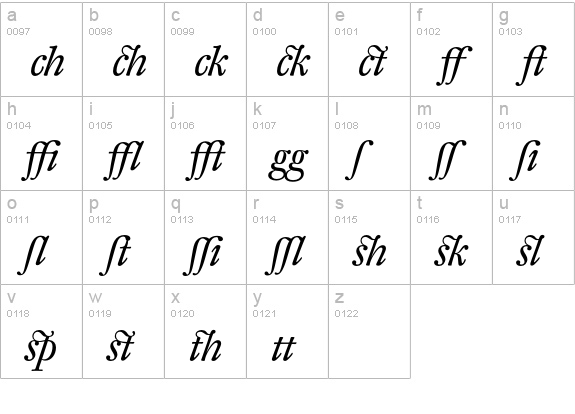
The DTLFleischmannT-AltItalic font is a modern and elegant typeface that exudes sophistication and style. Its sleek and slanted design adds a touch of flair to any project, making it perfect for use in branding, editorial design, and more. This versatile font is ideal for creating eye-catching headings, titles, and other design elements that demand attention. Its unique italic style gives a sense of movement and dynamism, making it a standout choice for projects that require a touch of creativity. Best of all, the DTLFleischmannT-AltItalic font is available for free download at FontsMarket.com. Whether you're a seasoned designer looking to add a new font to your collection or a beginner seeking to experiment with typography, this font is a valuable addition to any toolkit. Download it today and elevate your designs with the timeless elegance of DTLFleischmannT-AltItalic font.